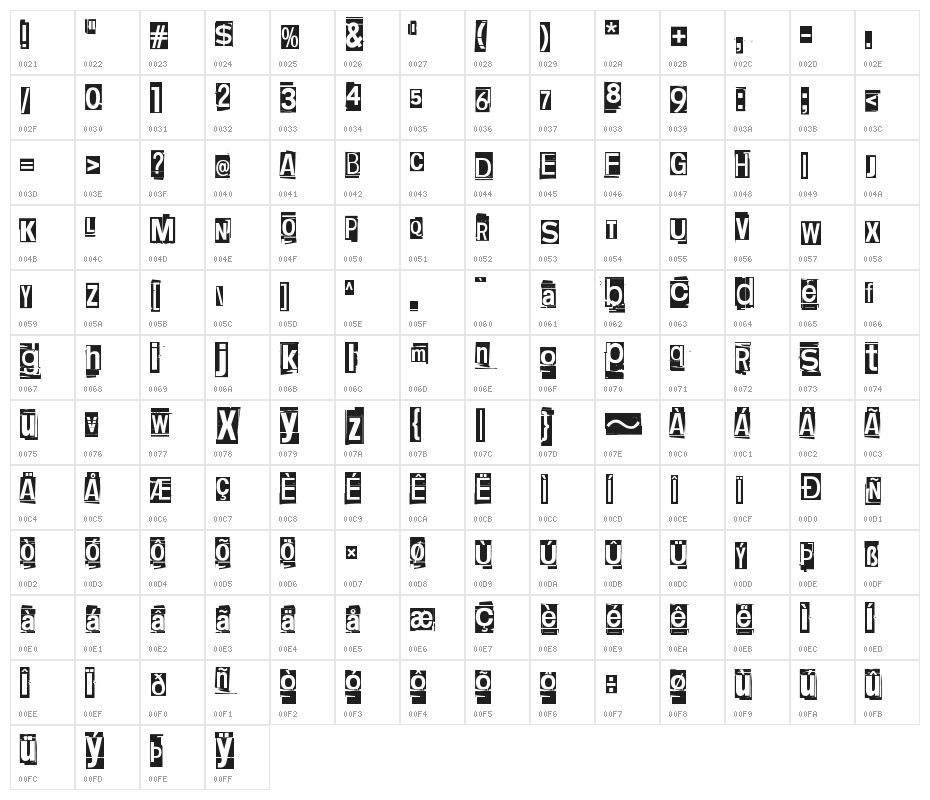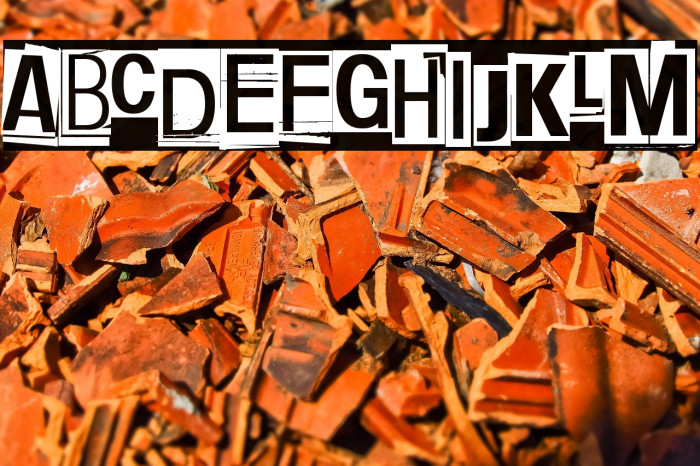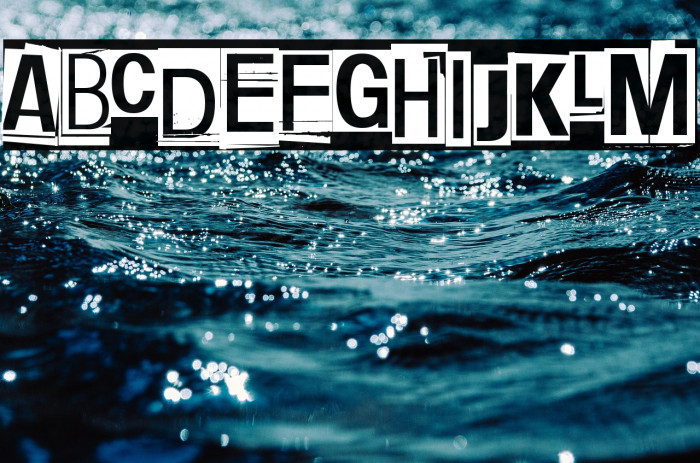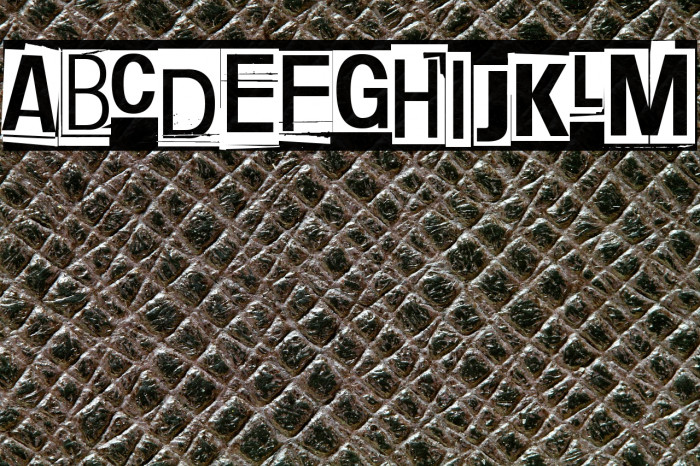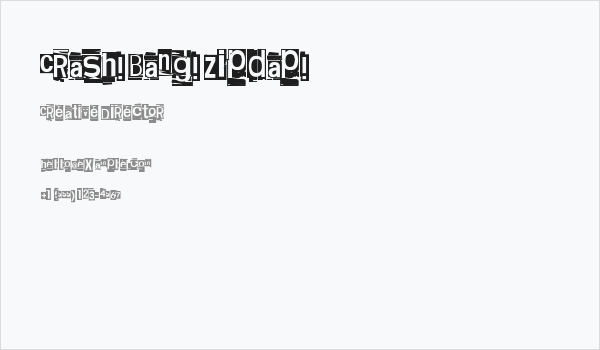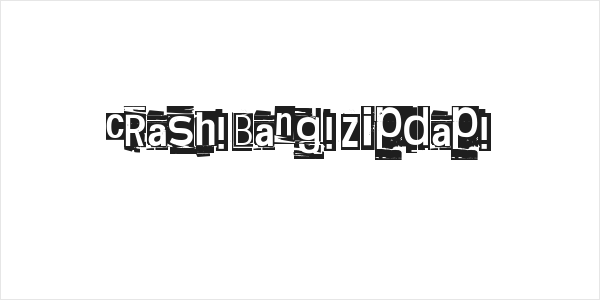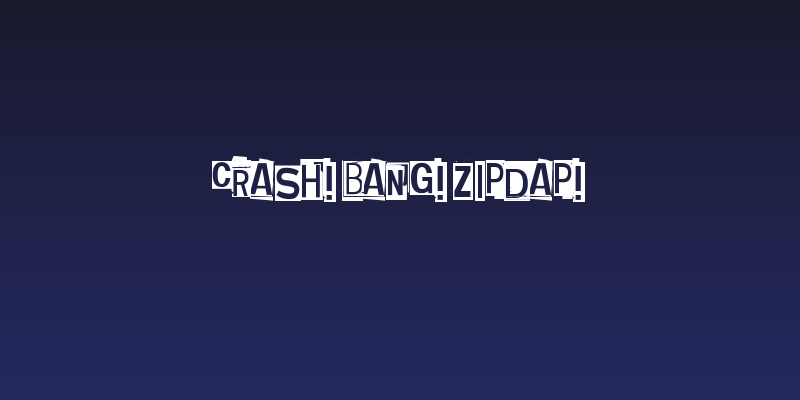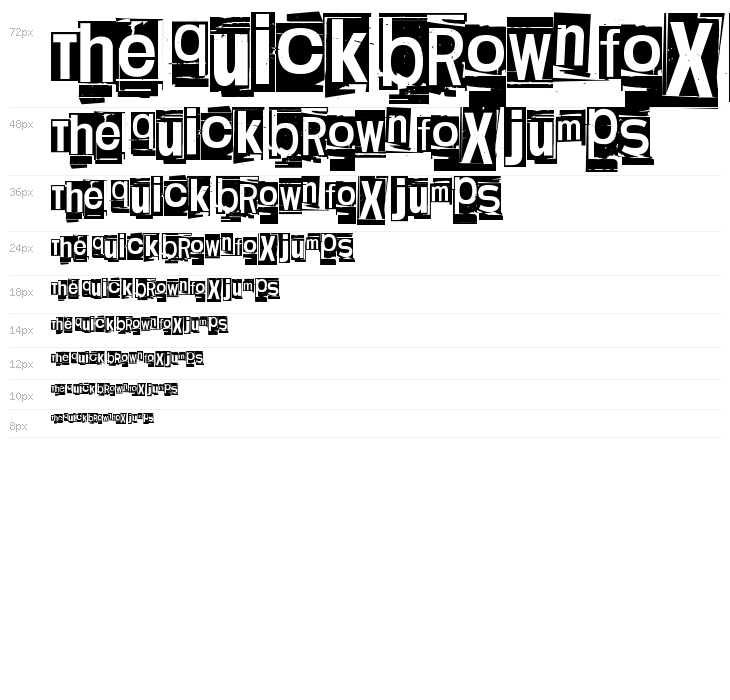
Crash! Bang! Zipdap! Font
Crash! Bang! Zipdap! Description
This font exudes a chaotic and energetic vibe, reminiscent of a ransom note style. Each character appears to be cut from different sources, creating a collage effect with varying backgrounds and outlines. The letters are bold and stand out starkly against their contrasting backgrounds, giving a sense of urgency and dynamism. The uneven edges and inconsistent alignment add to the disordered aesthetic, making it ideal for projects that require a raw, edgy look. The font captures attention with its high contrast and eclectic mix of styles, making it perfect for creative and unconventional designs.
| Overall Style | Edgy, Chaotic, Creative |
| Use Case | Posters, Album covers, Creative designs |
| Proposed Projects | Ideal for punk rock album covers, rebellious fashion branding, edgy posters, and creative art projects. |